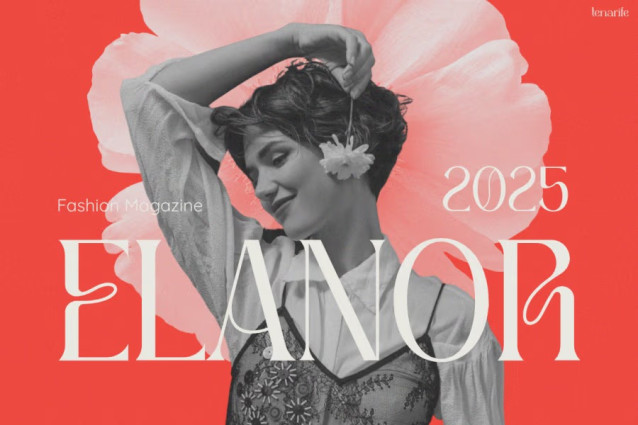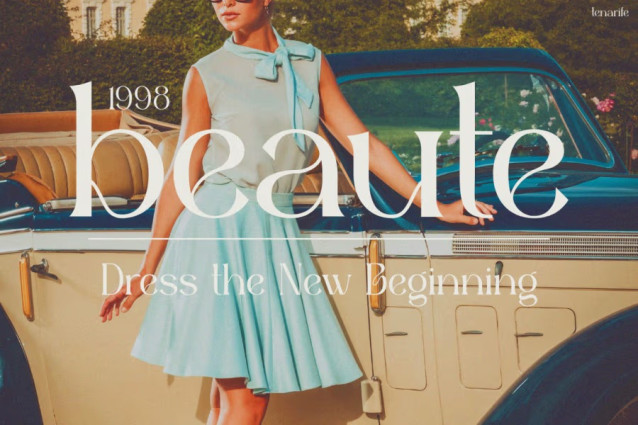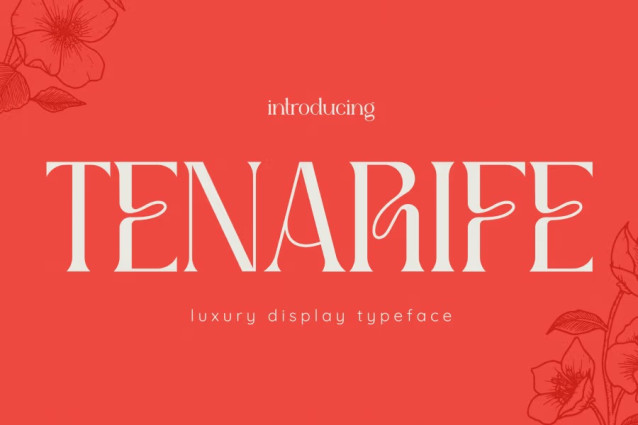
Tenarife Font
Tenarife Font a luxurious blend of soft curves and modern refinement. The font feels elegant at first glance thanks to its smooth lines and balanced contrast. Each letter is crafted with a gentle flow that creates a graceful and stylish impression. Because of its refined shape and subtle details, Tenarife stands out as a high-fashion typeface that instantly elevates any layout.
The font is visually unique. It carries a soft feminine charm, yet it still feels bold enough for strong editorial design. Its curves form a clean rhythm that makes text look polished and intentional. Therefore, even simple words look expressive and artistic. Tenarife also maintains clear readability, which helps it stay practical for both digital and print use.
You can use this font for Instagram quotes, promotional posters, fashion campaigns, branding kits, business cards, packaging, wedding invitations, or social media banners. It looks beautiful in both large titles and small supporting text. Because of its balanced weight and stylish contrast, the font keeps its elegance across all formats. Tenarife becomes a flexible tool that adds a premium touch to any project.
Perfect for Designers, Creators, and Brand Builders
Tenarife is perfect for fashion designers, beauty brands, and lifestyle creators who want a modern and elegant style. It works well for influencers who need a clean and luxurious look for social media posts. The font also supports branding needs such as logos, taglines, product labels, and magazine layouts.
It fits well for wedding planners, event stylists, illustrators, and template sellers who prefer a timeless serif with soft feminine energy. Because Tenarife highlights elegance without losing clarity, it becomes a helpful choice for anyone who designs premium content. Even beginners can use this font to create professional results, while experienced designers can push its aesthetic potential even further.
Its friendly and artistic nature also makes it suitable for bloggers, craft makers, and digital shop owners who want a warm but fashionable tone.
Bring a new sense of beauty to your work with Instagram Font Tenarife. Its refined details, graceful shape, and fashionable character will help your designs stand out with ease. Choose Tenarife if you want a typeface that feels modern, expressive, and effortlessly elegant.